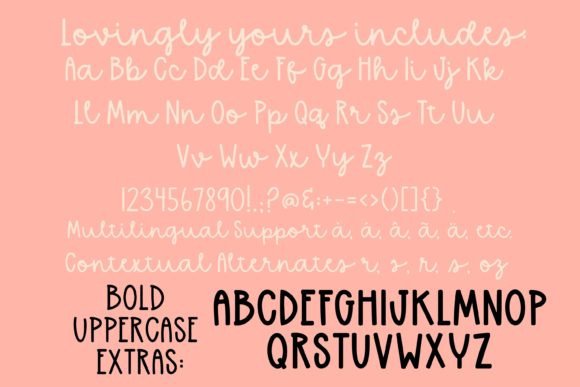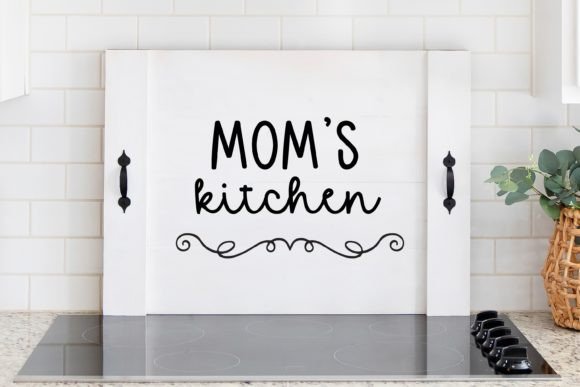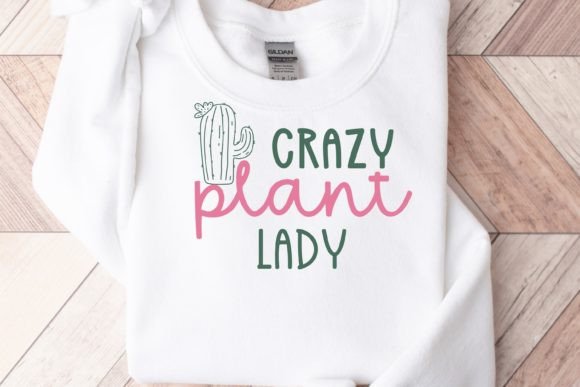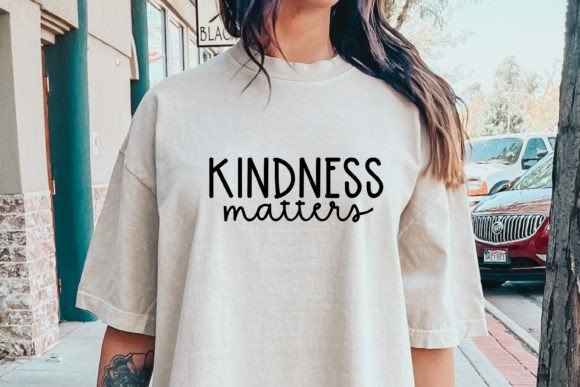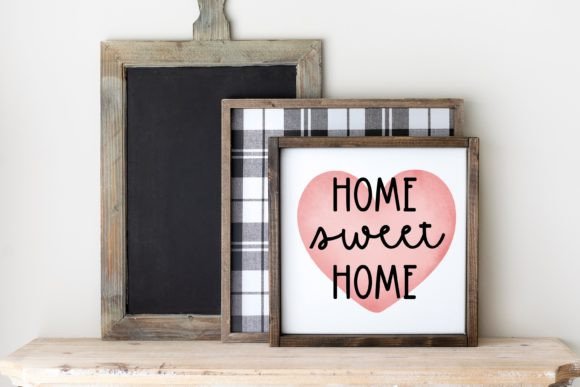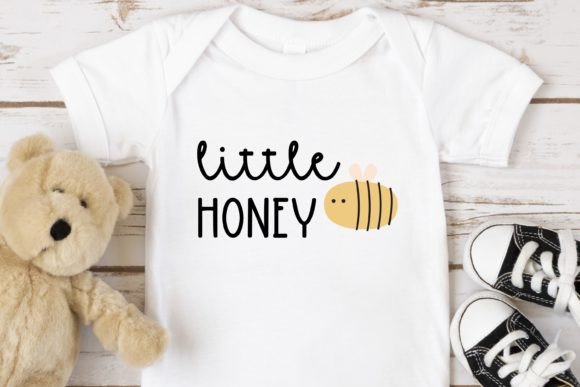
Introduction to Lovingly Yours Font
Introducing Lovingly Yours, a cute script font, perfect for all your creative projects.
Whether youโre a Cricut enthusiast or simply looking for a charming cursive font, this handwritten gem is exactly what you need With its elegant curves and smooth strokes, our cute script font brings a delightful touch to invitations, greeting cards, and personalized crafts.
Key Features of Lovingly Yours Font
Why Choose Lovingly Yours Font?
Lovingly Yours Font offers exceptional quality and versatility, making it a valuable addition to your design toolkit. Whether you’re creating for personal projects or commercial use, Lovingly Yours Font delivers professional results.